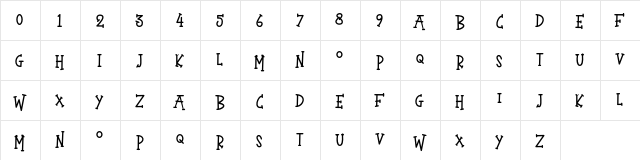
YELLOWBOUNCE Light
Design Context for YELLOWBOUNCE Typeface
YELLOWBOUNCE is a composed and adaptable typeface that performs quietly and consistently across a wide range of design contexts. Its slender proportions lend an understated elegance to any composition.